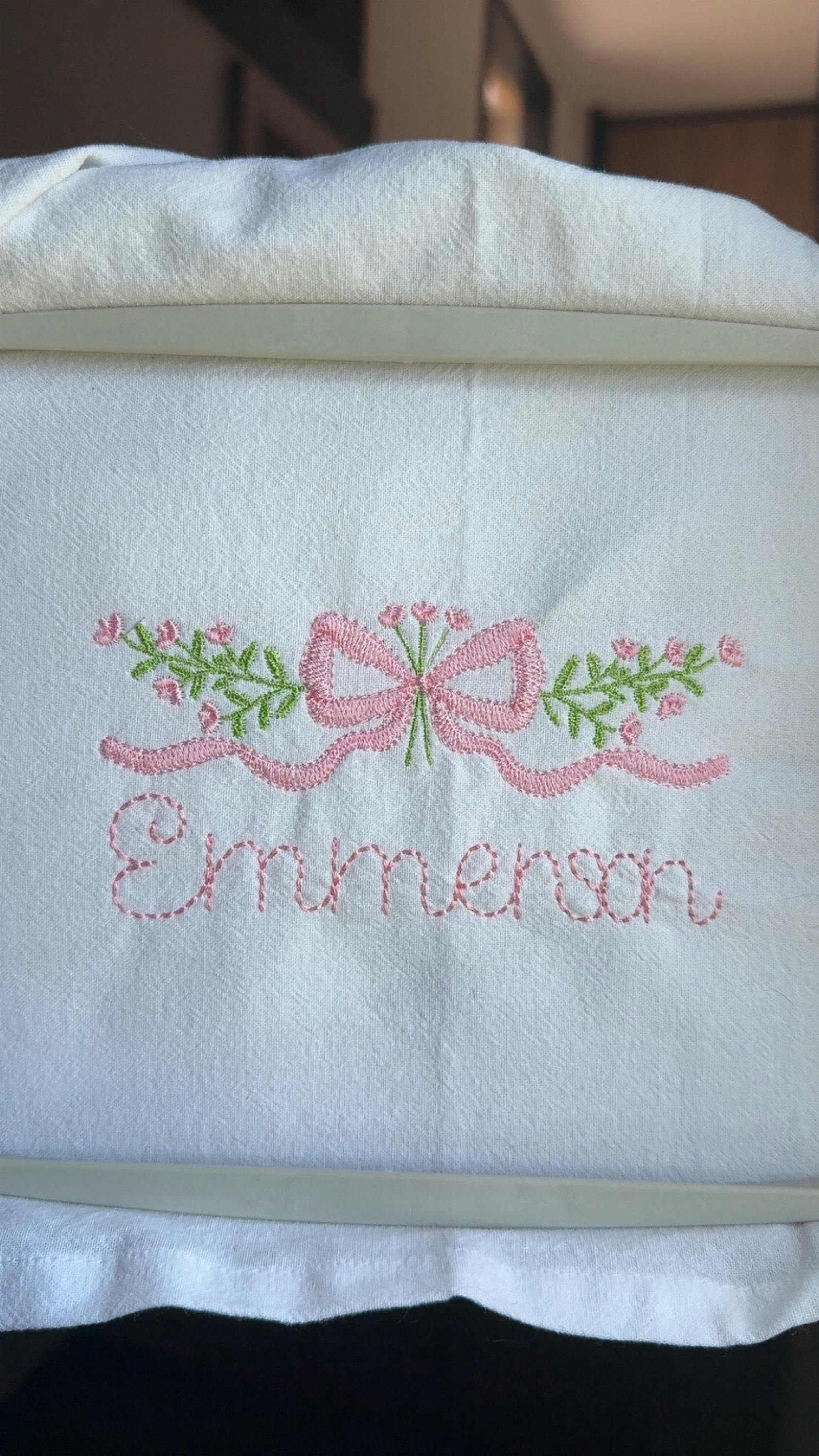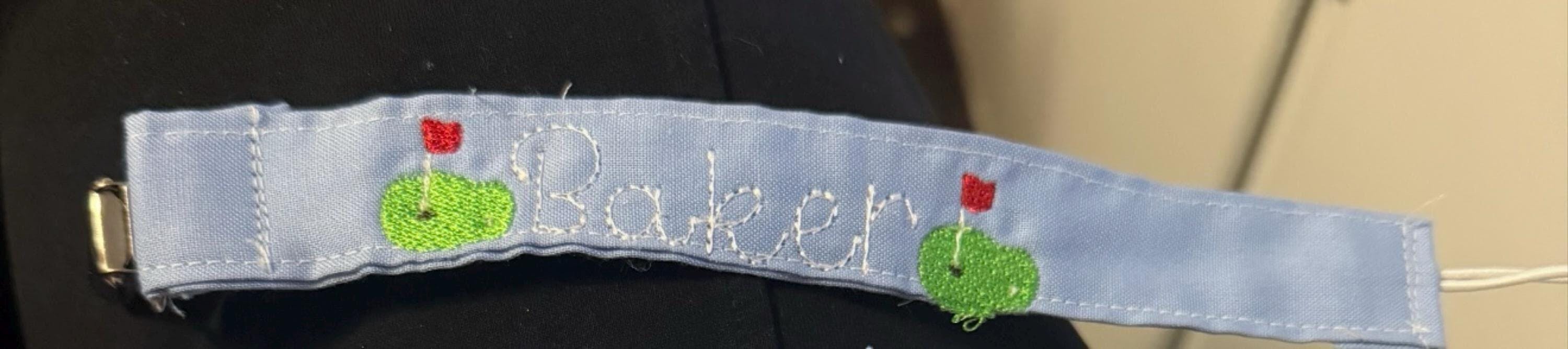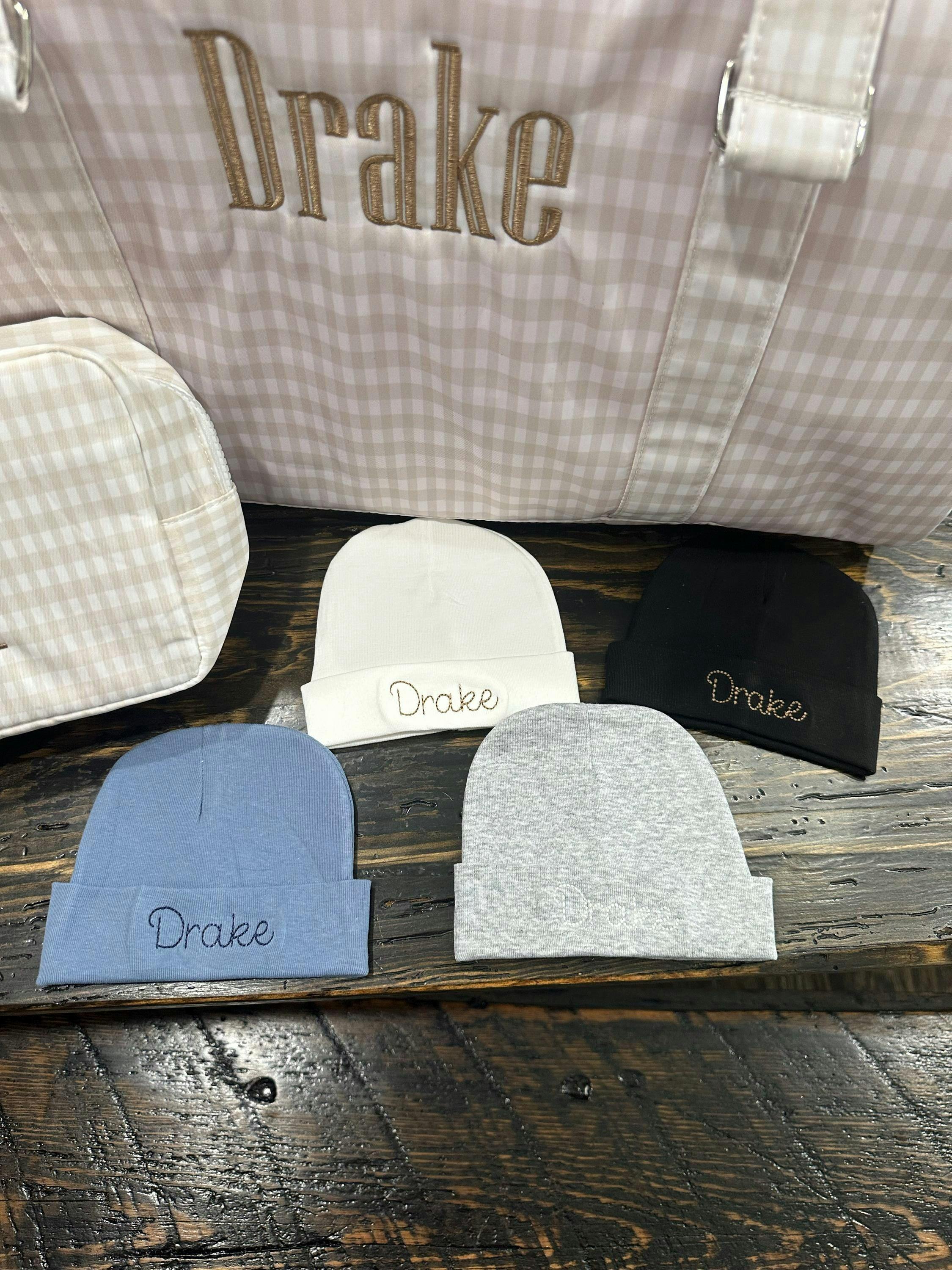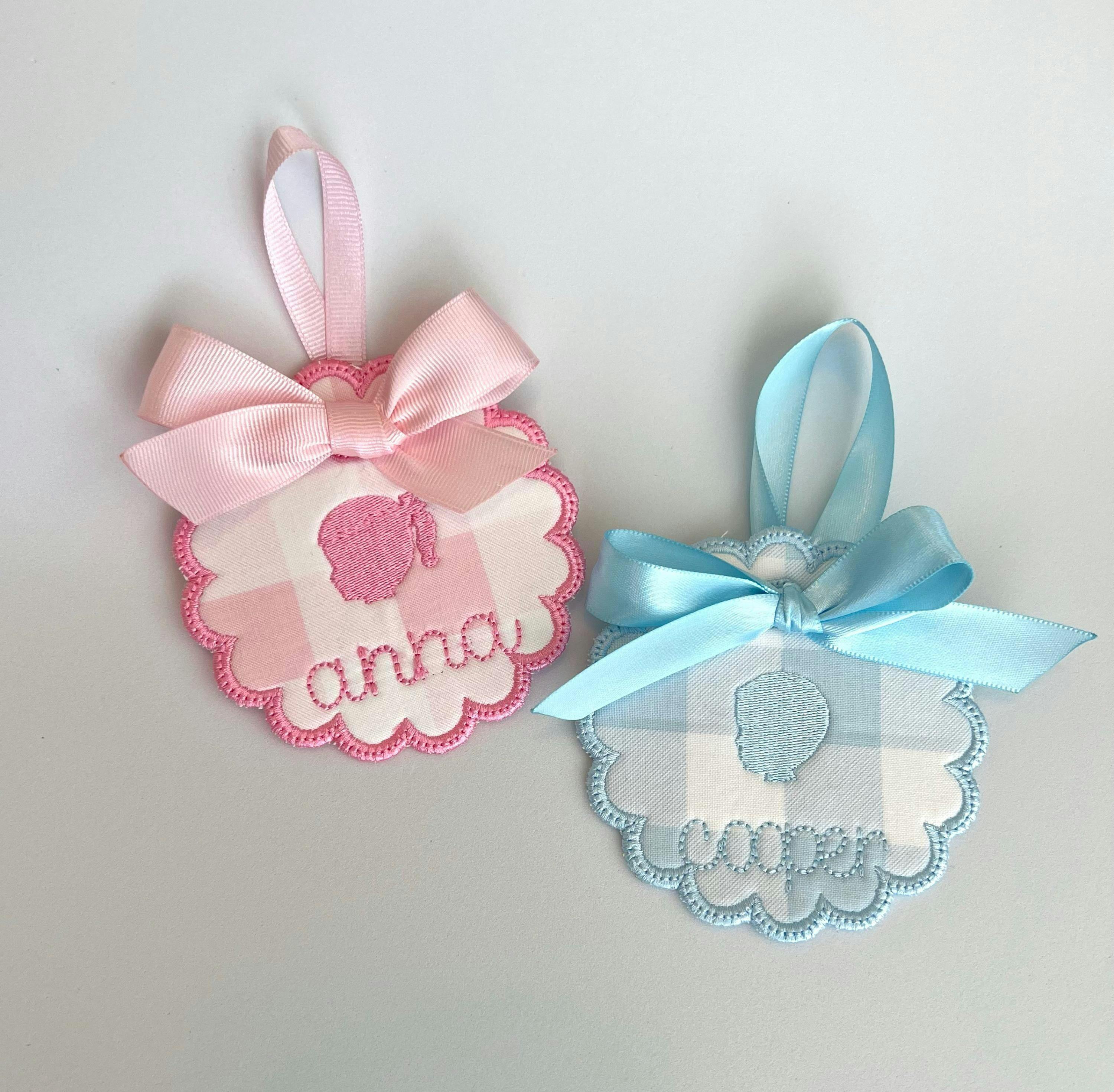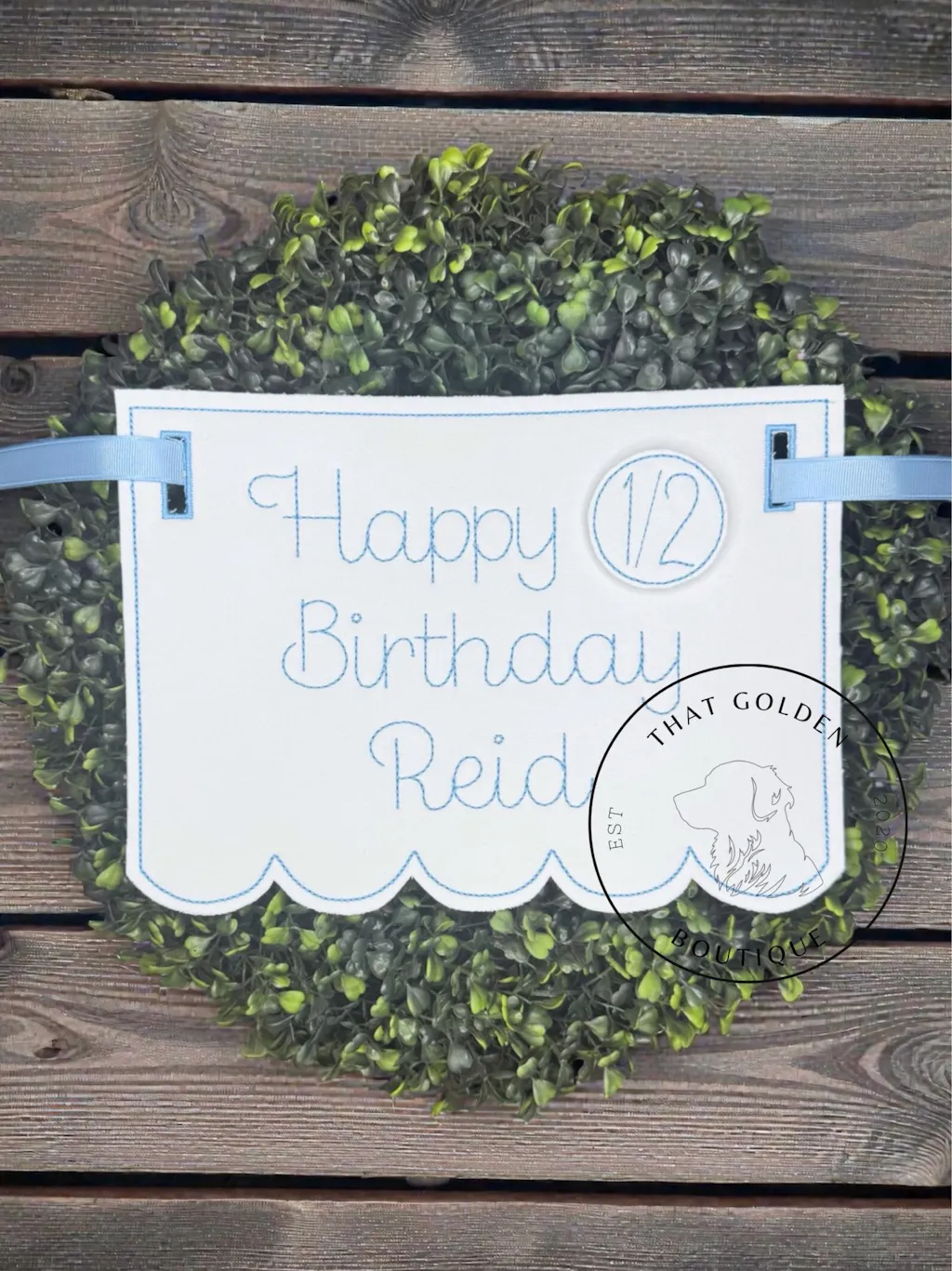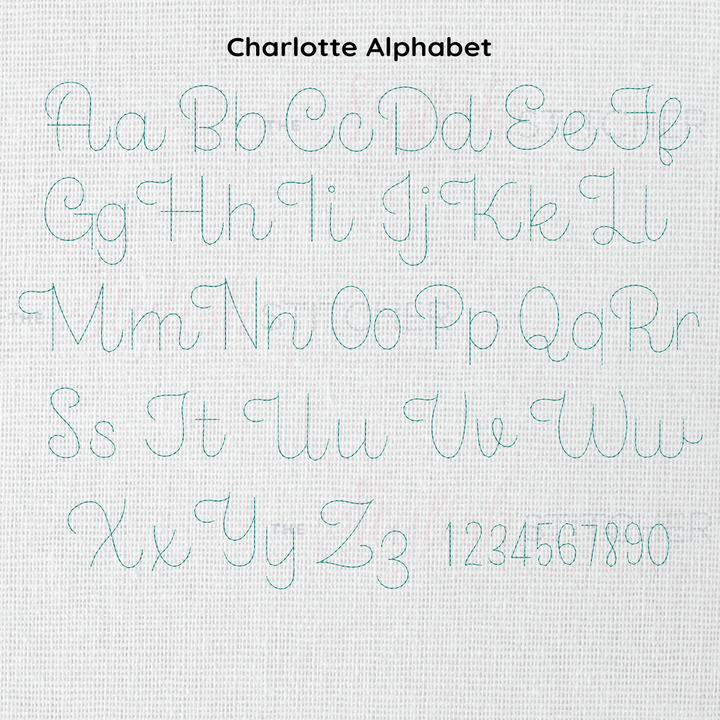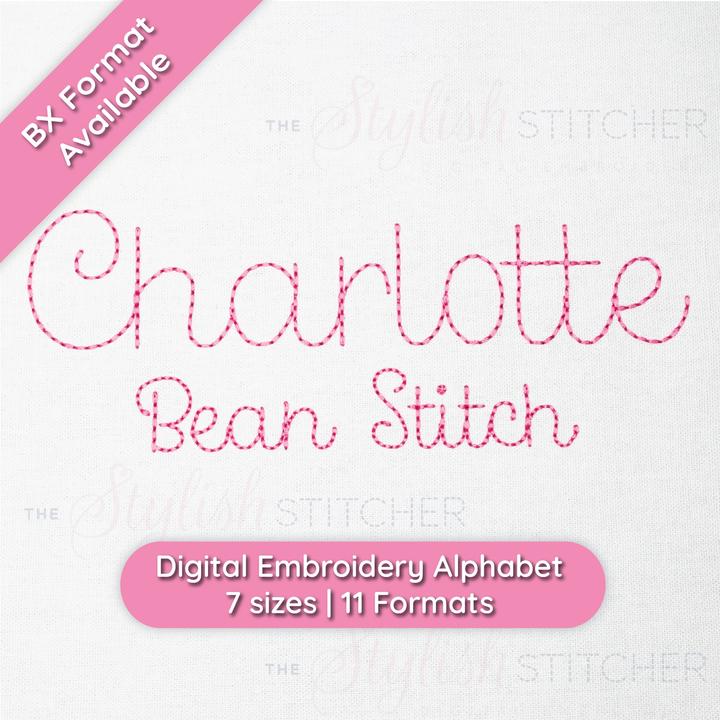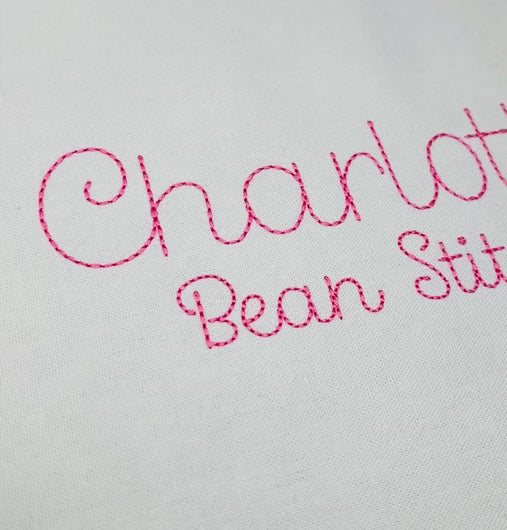
Photograph of Charlotte Bean Stitch Cursive Embroidery Font
Video showcasing stitched out Charlotte Bean Stitch font
Photograph of stitched out Charlotte Bean Stitch embroidery font alphabet
Charlotte Bean Stitch Cursive Embroidery Font
Introducing Charlotte, a beautifully handcrafted bean stitch cursive font that adds a touch of charm to any project. Whether you’re personalizing gifts or creating intricate designs, Charlotte’s versatility and graceful flow make it an essential addition to your embroidery toolkit.
Stitch Type: Bean Stitch